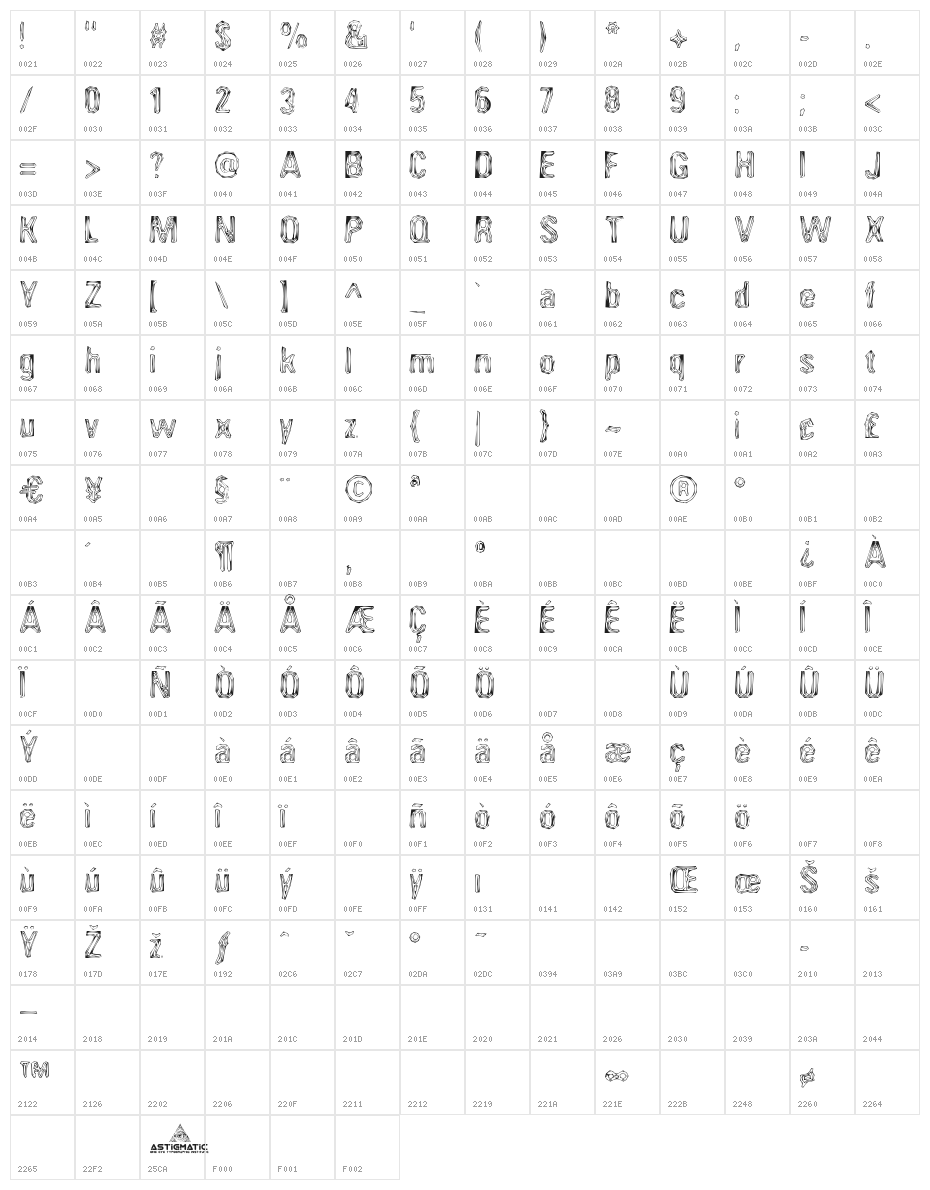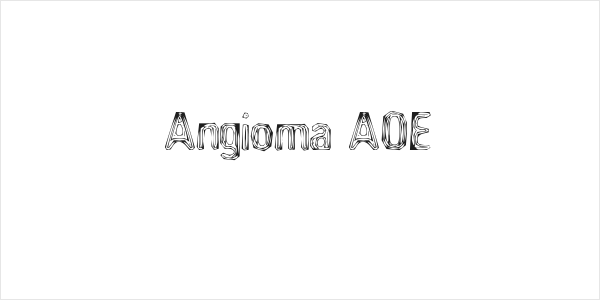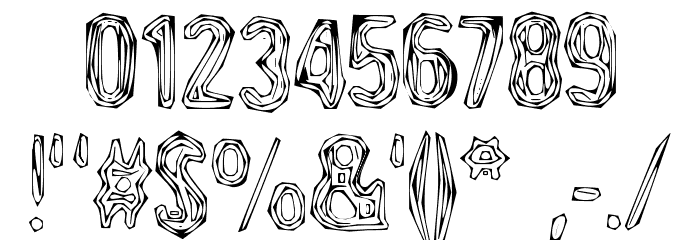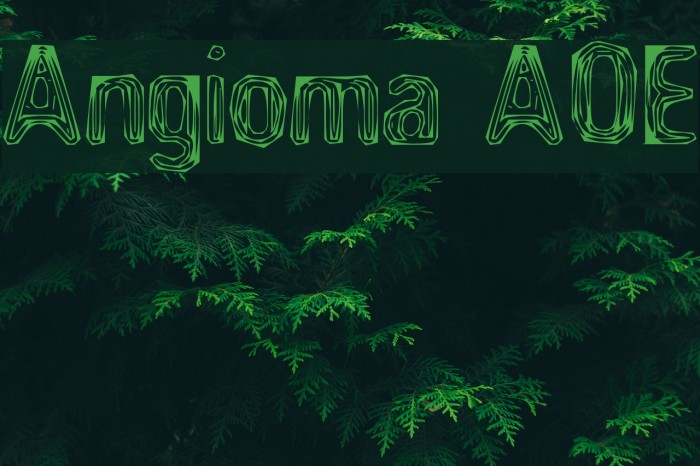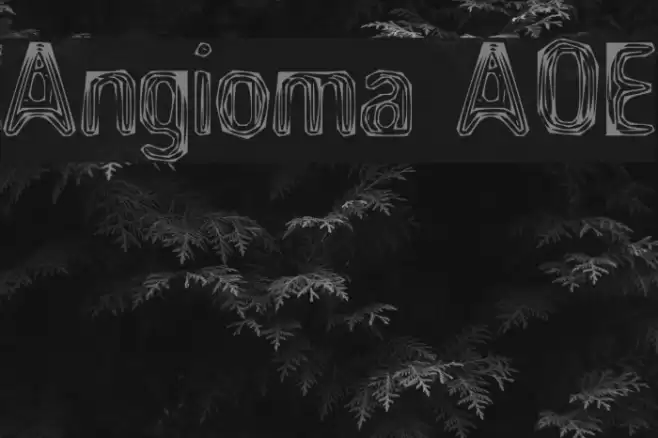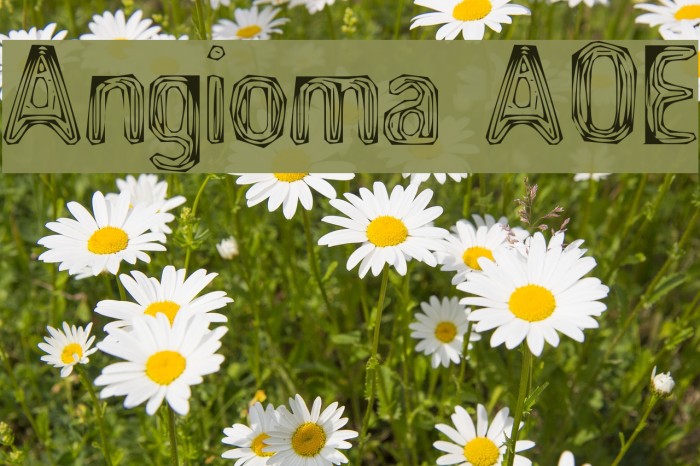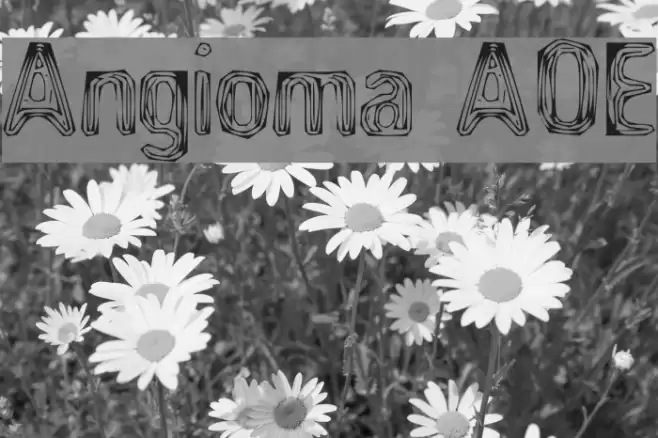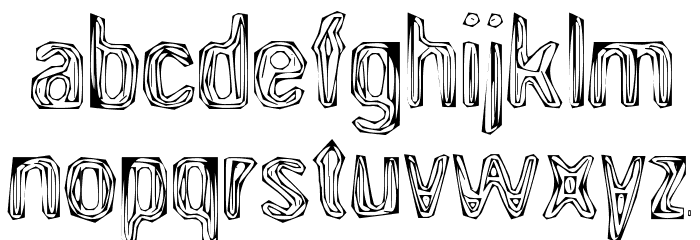
Angioma AOE Font
Angioma AOE Description
This font features a bold, artistic style with a hand-drawn appearance. Each character is outlined with multiple layers, creating a sense of depth and texture. The letters have an irregular, organic shape that gives them a unique, almost three-dimensional look. The font is highly decorative, with a playful and dynamic feel, making it stand out in any design. Its intricate details and bold presence make it suitable for eye-catching headlines or creative projects that require a distinctive and artistic touch.
| Proposed Projects | Ideal for artistic posters, album covers, creative branding, and unique logo designs. |